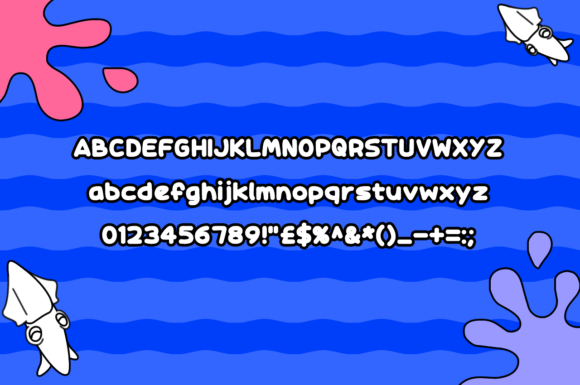
Tintenfische Font
About Tintenfische Font
Readable yet childish and fun, Tintenfische is the perfect font for kids products, video games, comic strips and more!